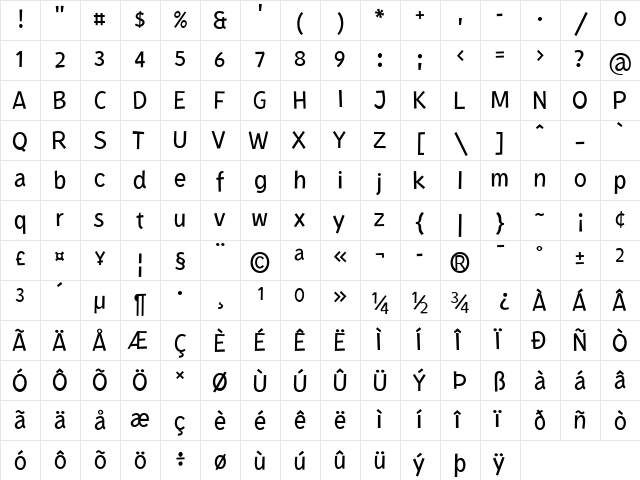
Kurri Island Thin Regular
| Foundry | Mans Greback |
| Designer | Mans Greback |
Design Context for Kurri Island Thin Typeface
Kurri Island Thin takes a measured approach to typography — its balanced proportions and neutral character make it a reliable workhorse for both digital and print work. The delicate stroke weight brings airiness and refinement to layouts.